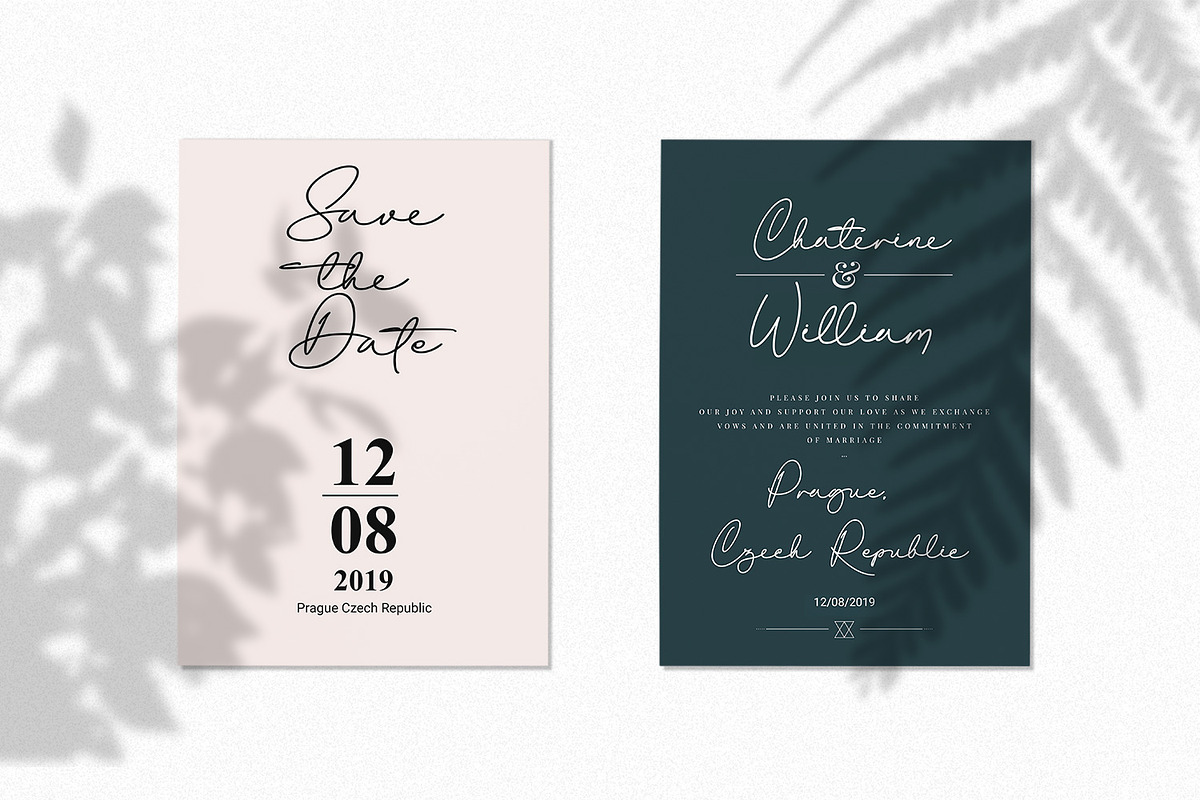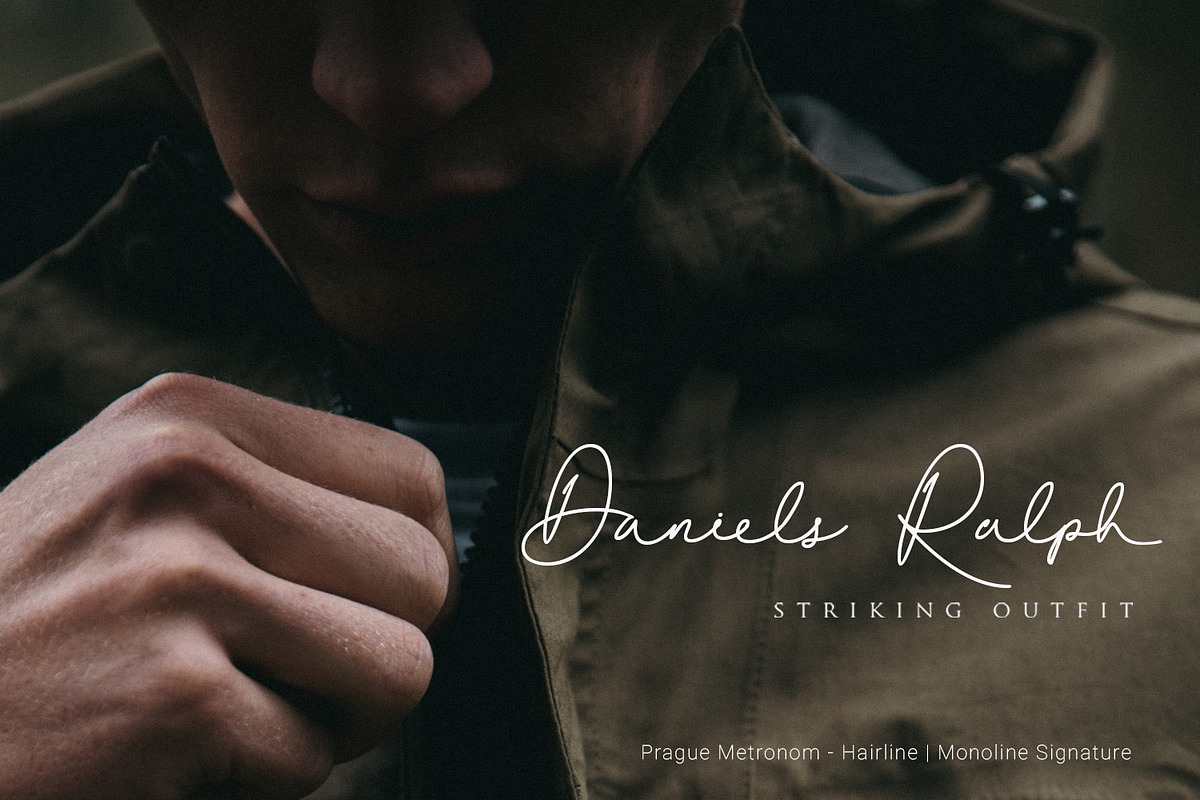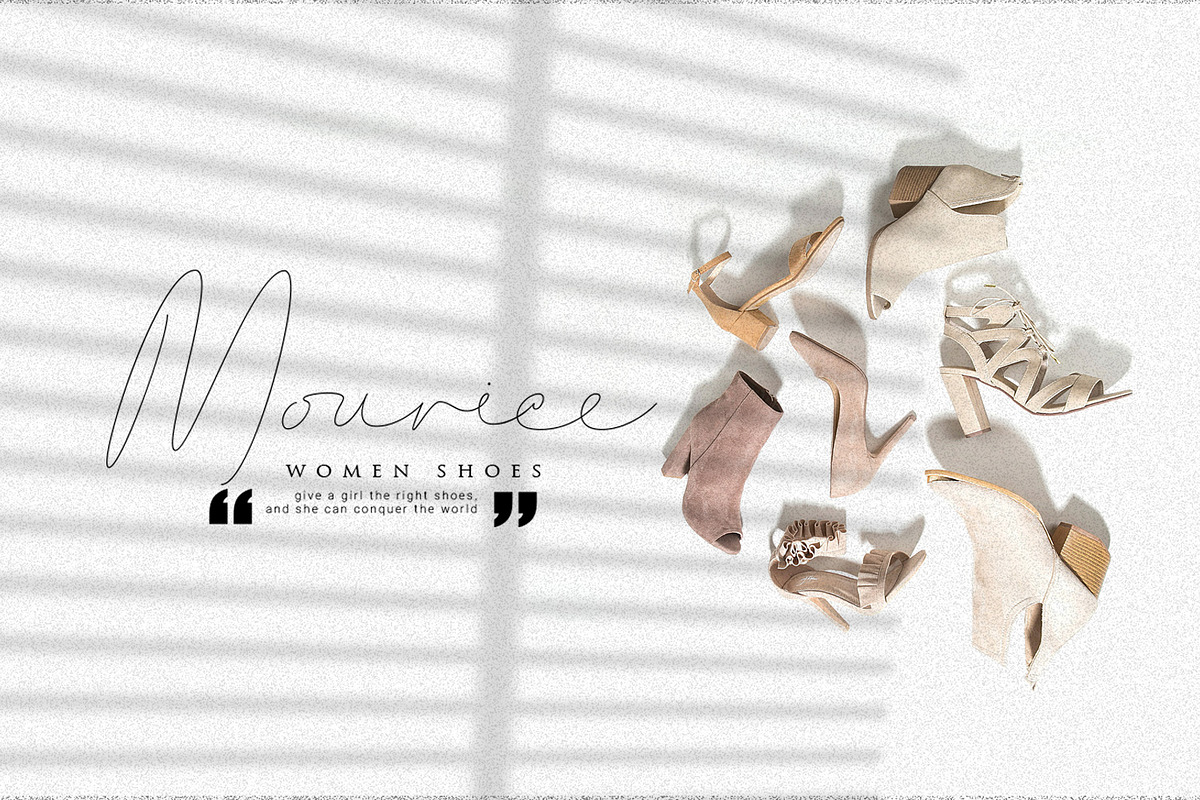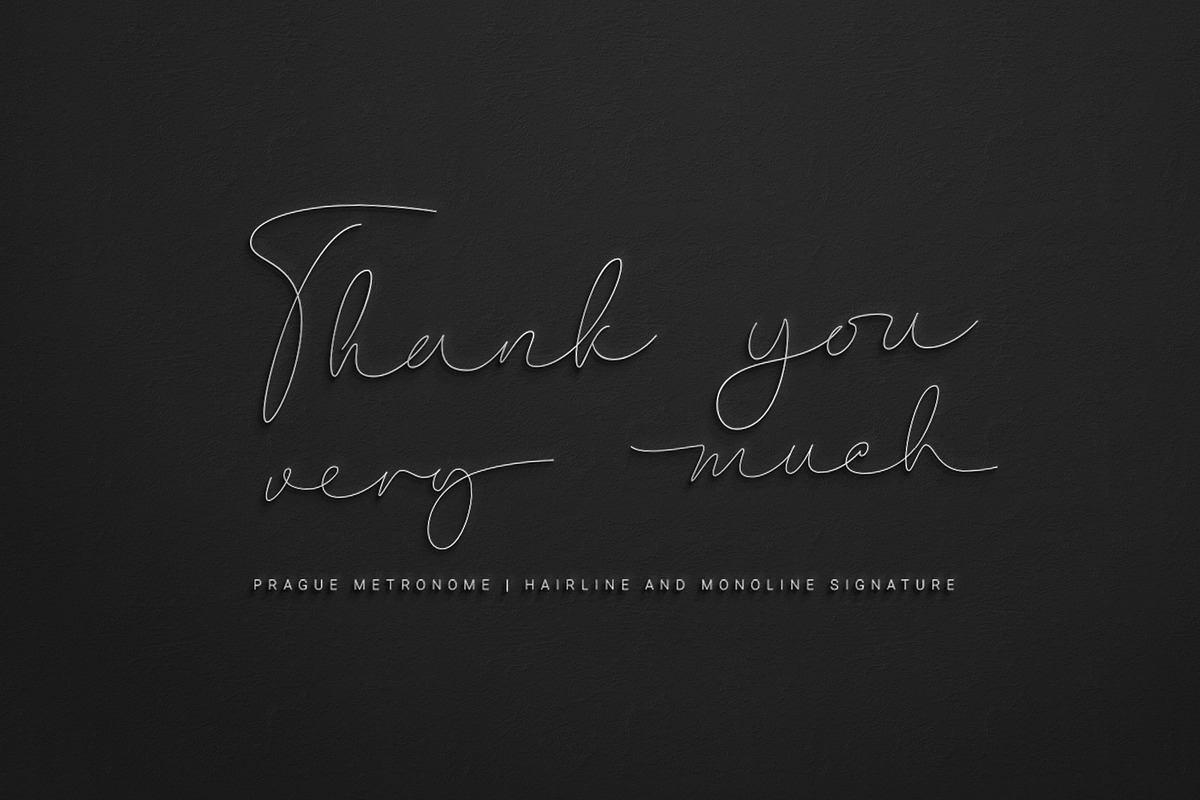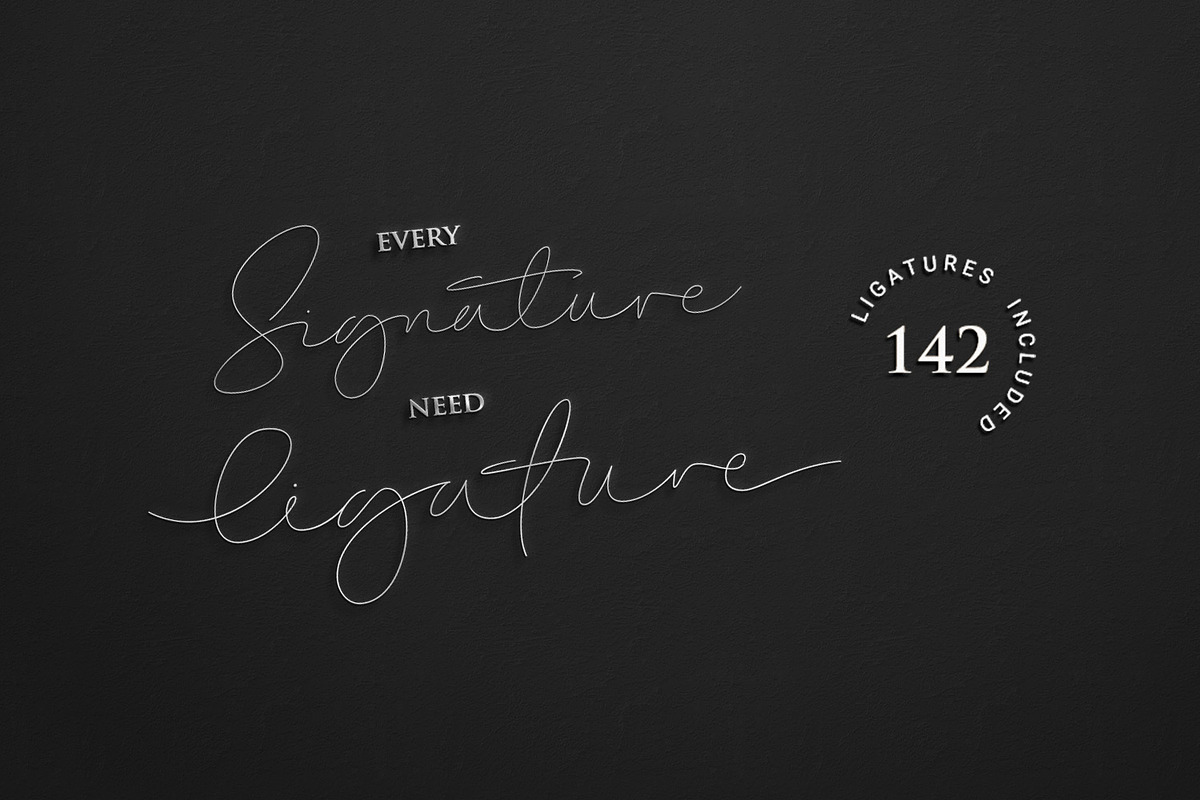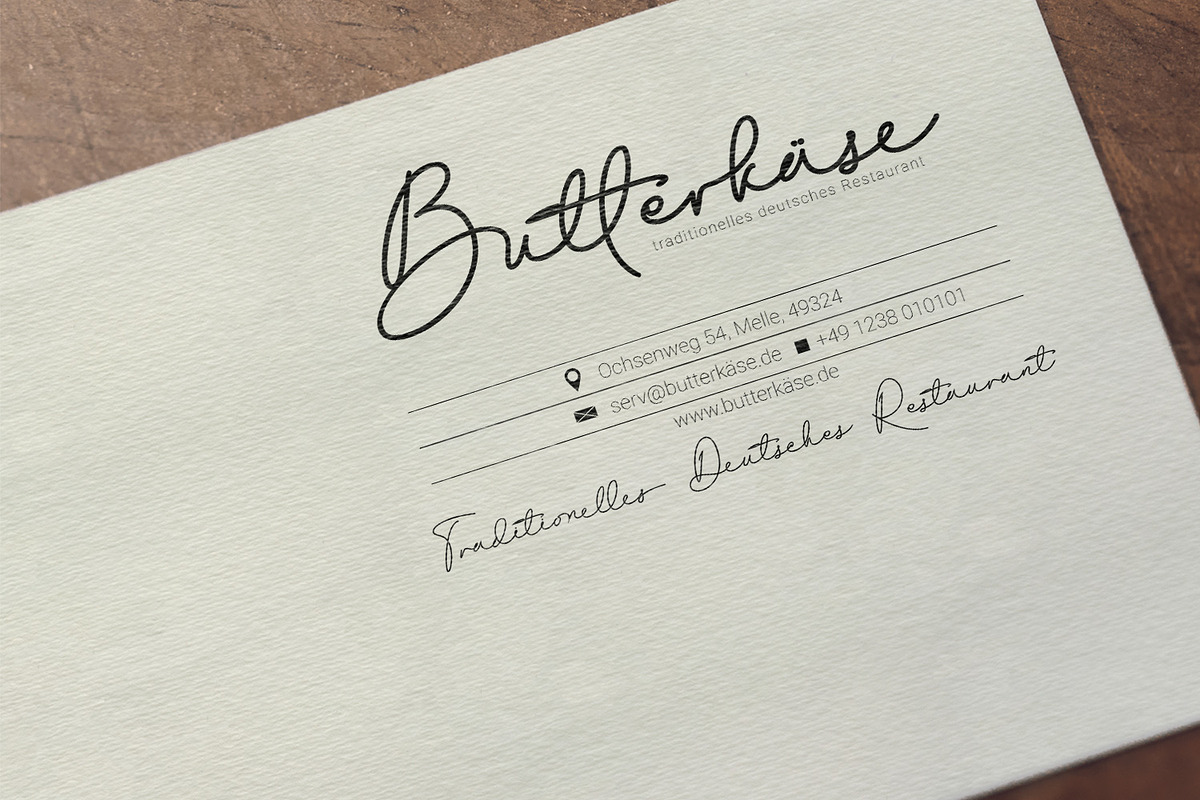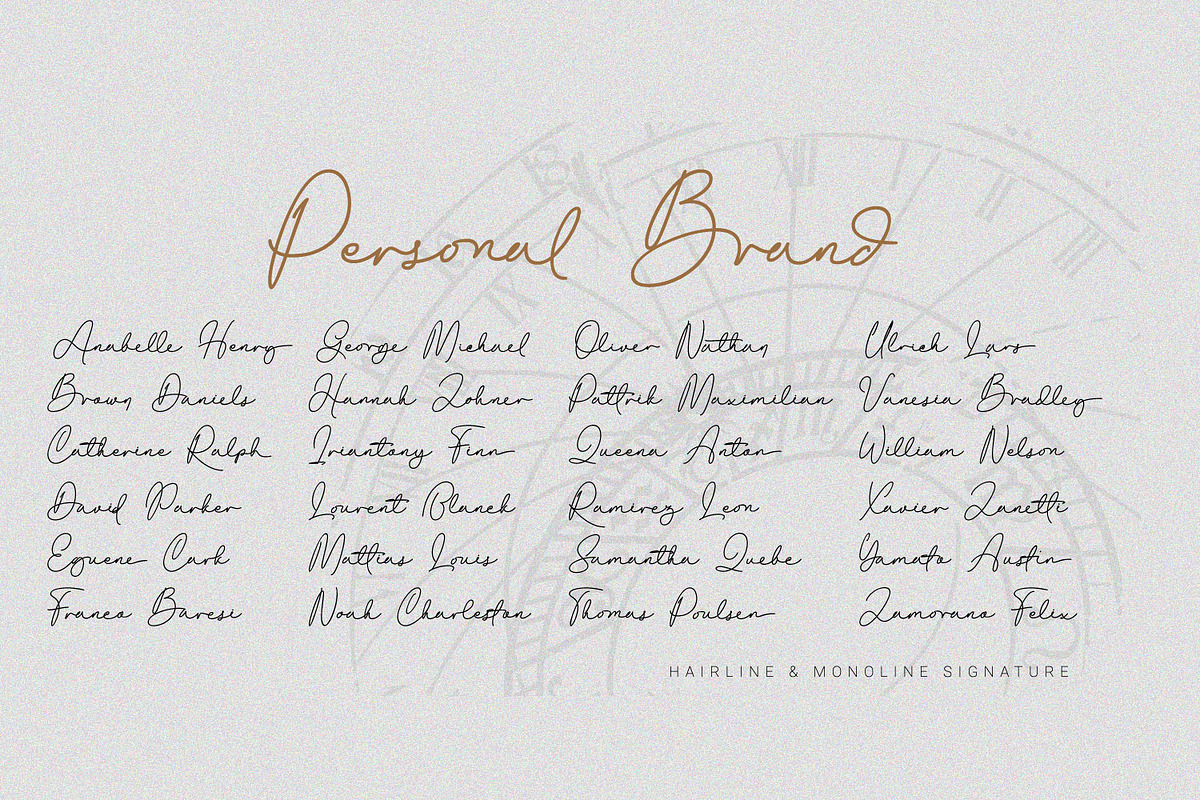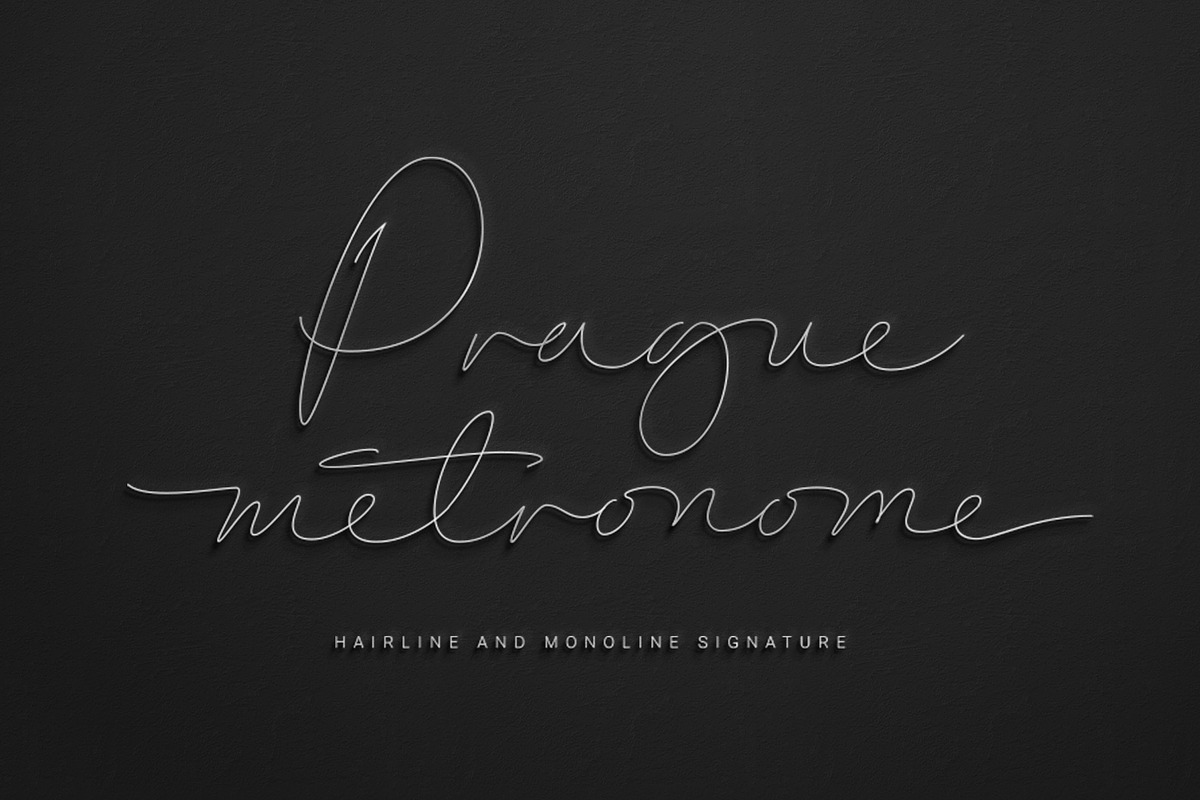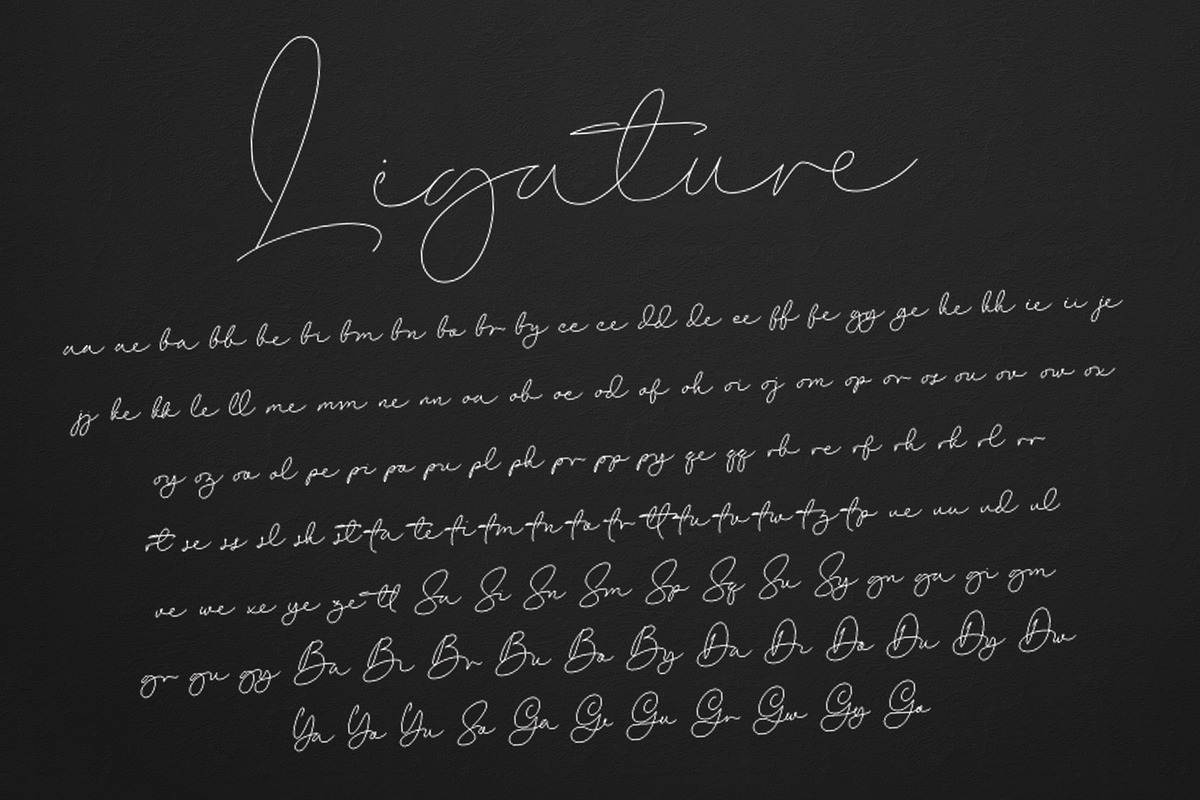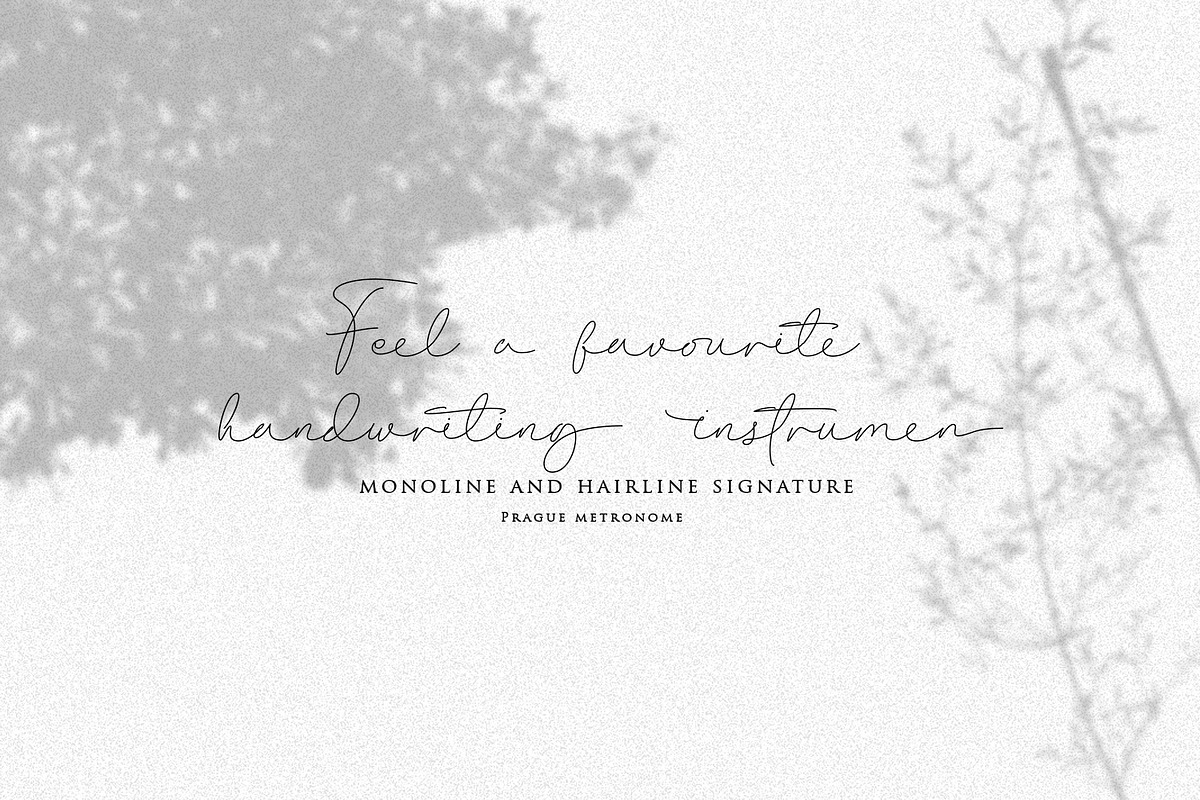
Prague Metronome
We are happy to introduce Prague Metronome, inspired by the city of Prague and the metronome in the heart of this city.
Prague Metronome, a font made manually by hand that we set in such a way that everything is connected in a neat rhythm, just like metronome used by musicians to set the tempo.
This font has alternate stylistic for Uppercase and Lowercase, we also complement lowercase with alternate swash and titling. No half-hearted, we added 142 ligature to get the impression of natural handwriting.
Comes with two thicknesses namely hairline and monoline as well as a unique shape appearance that will attract interest when used as your brand identity.